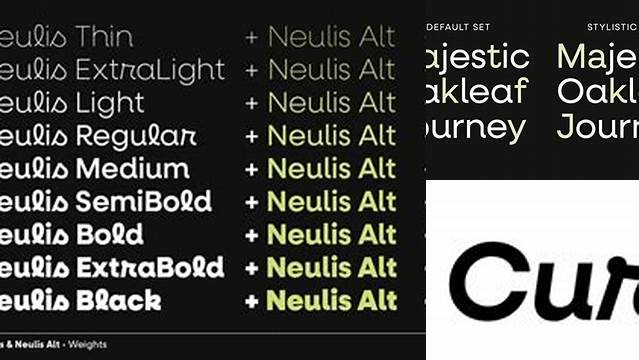
Are you looking to enhance your design projects with a sleek, modern font? The Neulis Black font family might be just what you need. This comprehensive guide will walk you through everything you need to know about Neulis Black, including its characteristics, best uses, and, most importantly, where to find free downloads. Let's dive in, guys!
What is Neulis Black Font Family?
So, what exactly is Neulis Black? Neulis Black is a contemporary sans-serif typeface known for its clean lines, strong presence, and versatility. It falls under the category of geometric sans-serif fonts, which are characterized by their simple, geometric shapes and minimalist design. This makes Neulis Black incredibly adaptable for a wide range of applications, from branding and advertising to web design and editorial layouts. Its bold weight, indicated by the "Black" in its name, gives it a distinct and impactful appearance, making it ideal for headlines, titles, and other display purposes where you need to grab attention. The Neulis Black font family often includes multiple weights and styles, offering designers a comprehensive toolkit for creating cohesive and visually appealing designs. These variations can range from light to extra bold, and may also include italic versions, providing flexibility in creating visual hierarchies and adding emphasis within text. The overall aesthetic of Neulis Black is modern and sophisticated, making it a popular choice for brands and projects that aim to convey a sense of clarity and innovation. Furthermore, the clean and legible nature of the font ensures that it remains readable even at smaller sizes, making it suitable for body text as well. This versatility is a significant advantage, as it allows designers to maintain a consistent visual identity across different media and applications. When used effectively, Neulis Black can contribute significantly to the overall impact and professionalism of a design, helping to communicate messages clearly and stylishly. Its wide character set typically supports multiple languages, making it a global choice for projects targeting diverse audiences. Ultimately, Neulis Black stands out as a reliable and aesthetically pleasing font that can elevate the visual appeal of any design project. Its timeless quality ensures that it remains relevant and effective in various design trends and contexts, making it a valuable asset in any designer's toolkit. Whether you're designing a website, creating a marketing campaign, or working on a print project, Neulis Black can provide the clean and modern look you need to make a lasting impression.
Key Characteristics of Neulis Black
When we talk about the key characteristics of Neulis Black, we're really getting into what makes this font so darn appealing and versatile. First off, the clean lines are a major draw. This isn't a font with a lot of frills or extra bits; it's straightforward and to the point, which makes it super readable and gives it a modern vibe. The geometric shapes that form the letters are another big part of its charm. Think perfect circles and straight lines – it’s this simplicity that gives Neulis Black its distinct look. This geometric structure also contributes to its clarity, making it easy on the eyes even when you're dealing with smaller text sizes. Now, let's talk about the boldness. As the name suggests, Neulis Black is a bold font, and that's intentional. This strong weight gives it presence and impact, making it a go-to choice for headlines and titles where you want to make a statement. But it’s not just about being bold; it’s about being impactful without being overwhelming. Neulis Black manages to strike that balance, making it both eye-catching and professional. Another key aspect of Neulis Black is its versatility. It's not a one-trick pony. You can use it for a wide range of projects, from website design to print materials, and it'll look great in pretty much any context. This adaptability comes from its clean, neutral design, which allows it to pair well with other fonts and design elements. Plus, the availability of different weights and styles within the Neulis Black family means you can create a whole visual hierarchy using just this one font. From light and regular weights for body text to the bolder weights for headings, you have the tools to create a cohesive and visually appealing design. The spacing between letters, or the kerning, is also thoughtfully designed in Neulis Black. This attention to detail ensures that the font is legible and pleasing to the eye, even in longer blocks of text. Proper kerning prevents letters from feeling too cramped or too far apart, which can impact readability. Overall, Neulis Black stands out because of its blend of simplicity, boldness, and versatility. It's a font that knows what it is – a modern, clean, and impactful typeface that can elevate any design project. Whether you're a seasoned designer or just starting out, Neulis Black is a fantastic font to have in your toolkit.
Best Uses for Neulis Black
The beauty of Neulis Black lies in its adaptability, making it a star player in various design fields. Let's explore some of the best uses for this versatile font. First up, branding. When it comes to creating a brand identity, Neulis Black is a fantastic choice. Its clean and modern aesthetic can help convey a sense of professionalism, clarity, and innovation. Whether you're designing a logo, business cards, or marketing materials, Neulis Black can provide the visual consistency your brand needs. Its bold weight works particularly well for logos and taglines, helping your brand make a strong first impression. Moving on to advertising, Neulis Black shines in headlines and call-to-actions. Its strong presence grabs attention, ensuring your message doesn't get lost in the visual clutter. Whether it's a print ad, a social media graphic, or a billboard, Neulis Black helps your text stand out. The key here is readability; even at a glance, people can easily read and understand your message. In the world of web design, Neulis Black is a go-to font for many designers. Its clean lines make it perfect for website headers, navigation menus, and body text. The font's legibility ensures a smooth user experience, and its modern look aligns well with contemporary website designs. Plus, because it's a web-friendly font, it loads quickly and displays consistently across different browsers and devices. Neulis Black also excels in editorial layouts. Think magazines, newspapers, and books. Its versatility allows it to work well in both headlines and body text, providing a cohesive look throughout the publication. The different weights within the Neulis Black family can be used to create a visual hierarchy, guiding the reader through the content. For example, you might use the bold weight for headlines and the regular weight for body text. Graphic design projects, such as posters and flyers, also benefit from Neulis Black. Its bold appearance makes it ideal for eye-catching designs that need to communicate quickly and effectively. Whether you're promoting an event, a product, or a cause, Neulis Black helps your message get noticed. Another area where Neulis Black excels is in presentations. Its clean, professional look makes it a great choice for slide decks, ensuring your content is both readable and visually appealing. The font's simplicity helps keep the focus on your message, rather than distracting from it. Overall, Neulis Black is a workhorse font that can handle a wide range of design tasks. Its versatility, readability, and modern aesthetic make it a valuable asset for any designer. Whether you're working on branding, advertising, web design, or editorial projects, Neulis Black can help you create visually compelling and effective designs.
Neulis Black Alternatives
Sometimes, you might be looking for a font with a similar vibe to Neulis Black but need something slightly different, or maybe you're having trouble finding a free version. No worries, guys! There are plenty of fantastic alternatives out there that share Neulis Black's clean, geometric sans-serif aesthetic. Let's explore some of the best options. First up, we have Montserrat. This is a super popular Google Font that shares many of Neulis Black's characteristics. Montserrat has a clean, modern look with geometric letterforms, making it a great choice for headlines, body text, and everything in between. It comes in a variety of weights, giving you plenty of flexibility for your designs. Plus, because it's a Google Font, it's free for both personal and commercial use and easy to embed on your website. Another excellent alternative is Lato. This sans-serif typeface has a slightly warmer, more humanist feel than Neulis Black, but it still maintains a clean and modern appearance. Lato is known for its excellent readability, making it a great choice for longer blocks of text. It's also a Google Font, so it's free and widely accessible. If you're looking for a font with a bit more personality, consider Raleway. This elegant sans-serif has a slightly more condensed letterform and a distinctive "W" that adds a touch of sophistication. Raleway works well for headlines and display text, but it's also legible enough for body copy. Like Montserrat and Lato, Raleway is available on Google Fonts. Next, let's talk about Open Sans. This is another classic sans-serif that's known for its clean lines and neutral appearance. Open Sans is incredibly versatile and works well in a wide range of design applications, from websites to print materials. It's also a Google Font, making it a convenient and free option. If you're after a font with a slightly bolder presence, Poppins is worth checking out. This geometric sans-serif has a strong, modern look that's perfect for headlines and branding. Poppins comes in a variety of weights, allowing you to create a visual hierarchy in your designs. And yes, it's also a Google Font! For a more condensed sans-serif option, consider Oswald. This typeface has a slightly narrower letterform, which can be useful when you need to fit more text into a limited space. Oswald is a great choice for headlines and banners, and it's available for free on Google Fonts. Another alternative that's worth exploring is Roboto. This sans-serif family has a modern yet friendly feel, making it a versatile choice for various design projects. Roboto is known for its excellent legibility on screens, which makes it a solid option for web design. As you might have guessed, it's also part of the Google Fonts library. When choosing a Neulis Black alternative, consider the specific needs of your project. Think about the font's readability, its overall aesthetic, and how well it pairs with other design elements. And remember to check the font's license to ensure it's suitable for your intended use. With so many fantastic sans-serif options available, you're sure to find the perfect typeface for your next design endeavor.